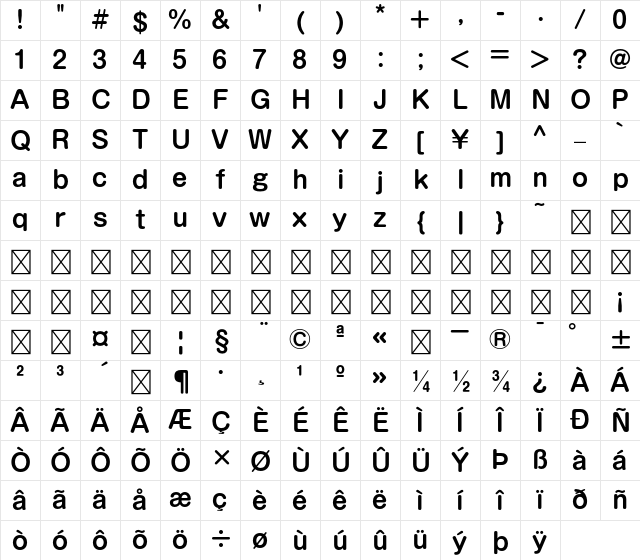
U-OTF Shin Maru Go Upr DB
Style: DB
U-OTF Shin Maru Go Upr Family
U-OTF Shin Maru Go Upr DB
Complete U-OTF Shin Maru Go Upr DB glyph index. Displaying only characters natively supported by U-OTF Shin Maru Go Upr DB font.
Design Context for U-OTF Shin Maru Go Upr
U-OTF Shin Maru Go Upr is a composed and adaptable typeface that performs quietly and consistently across a wide range of design contexts.